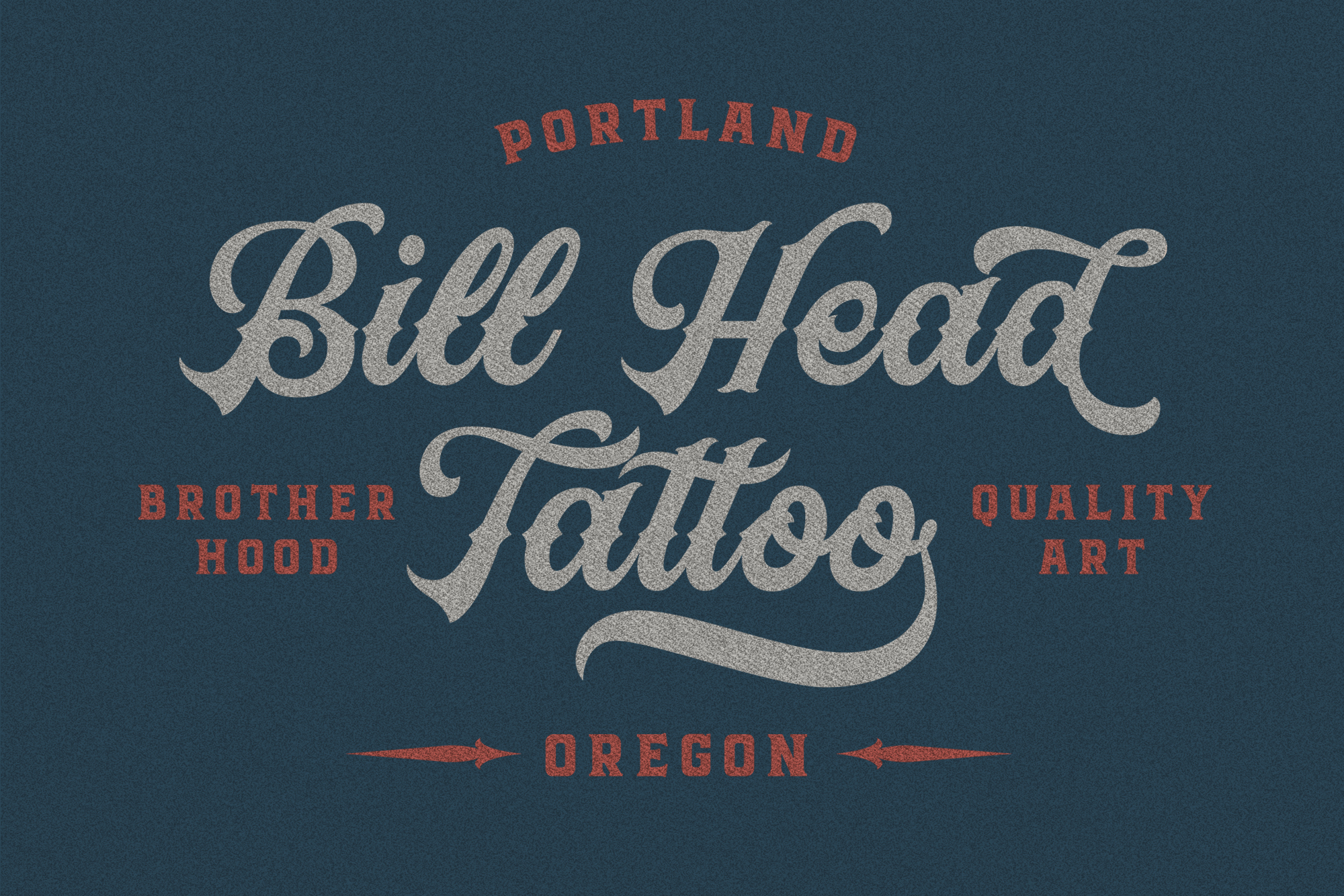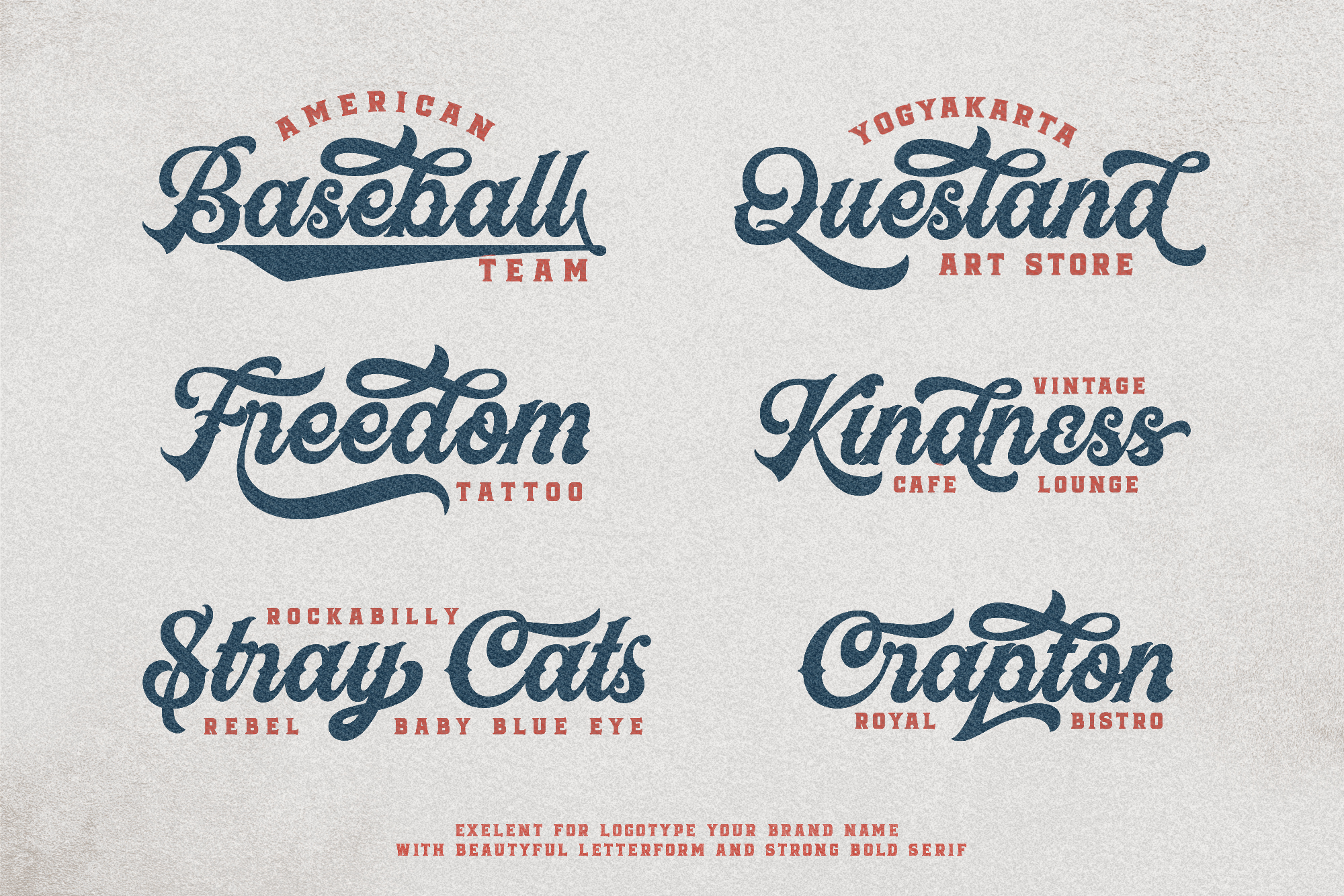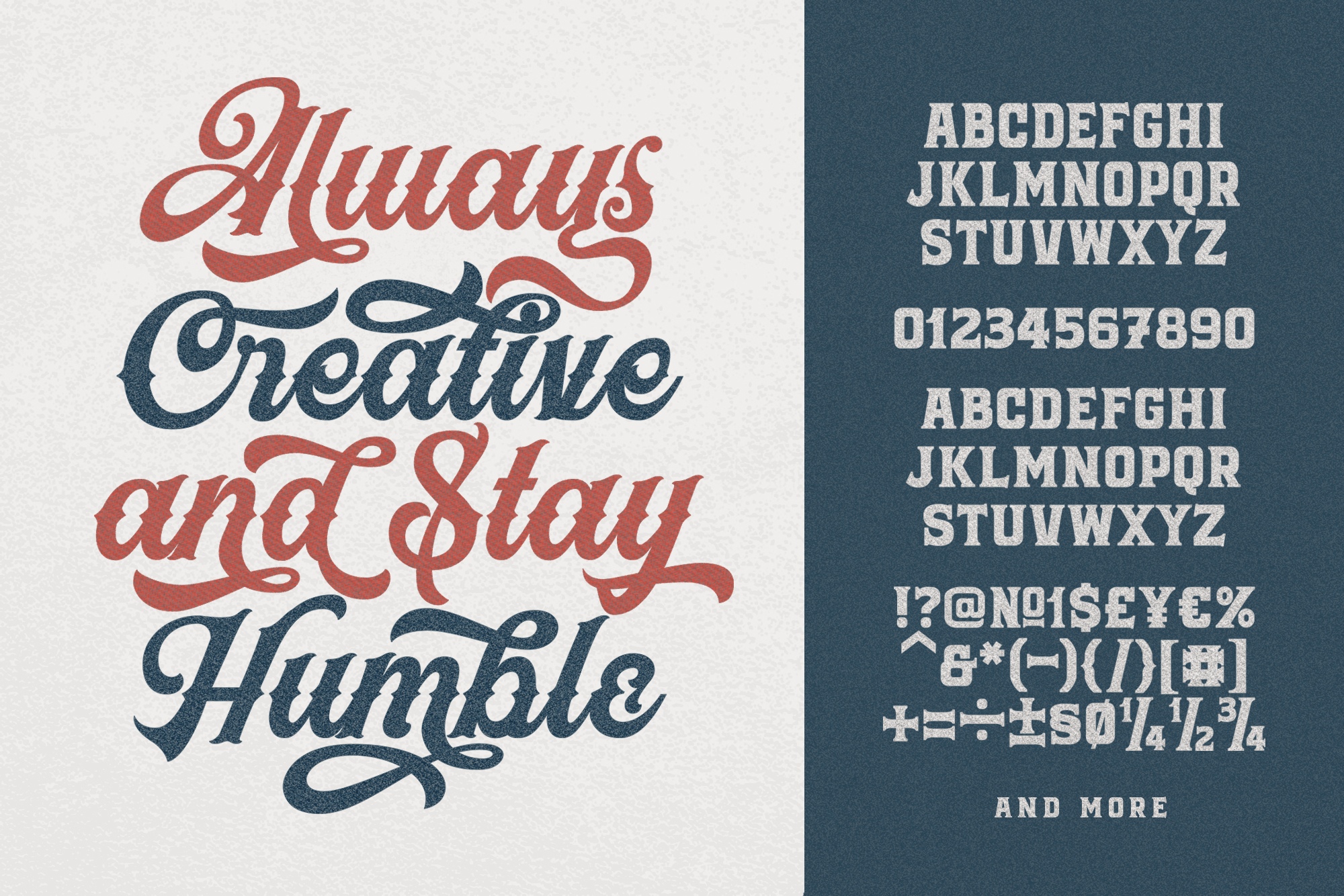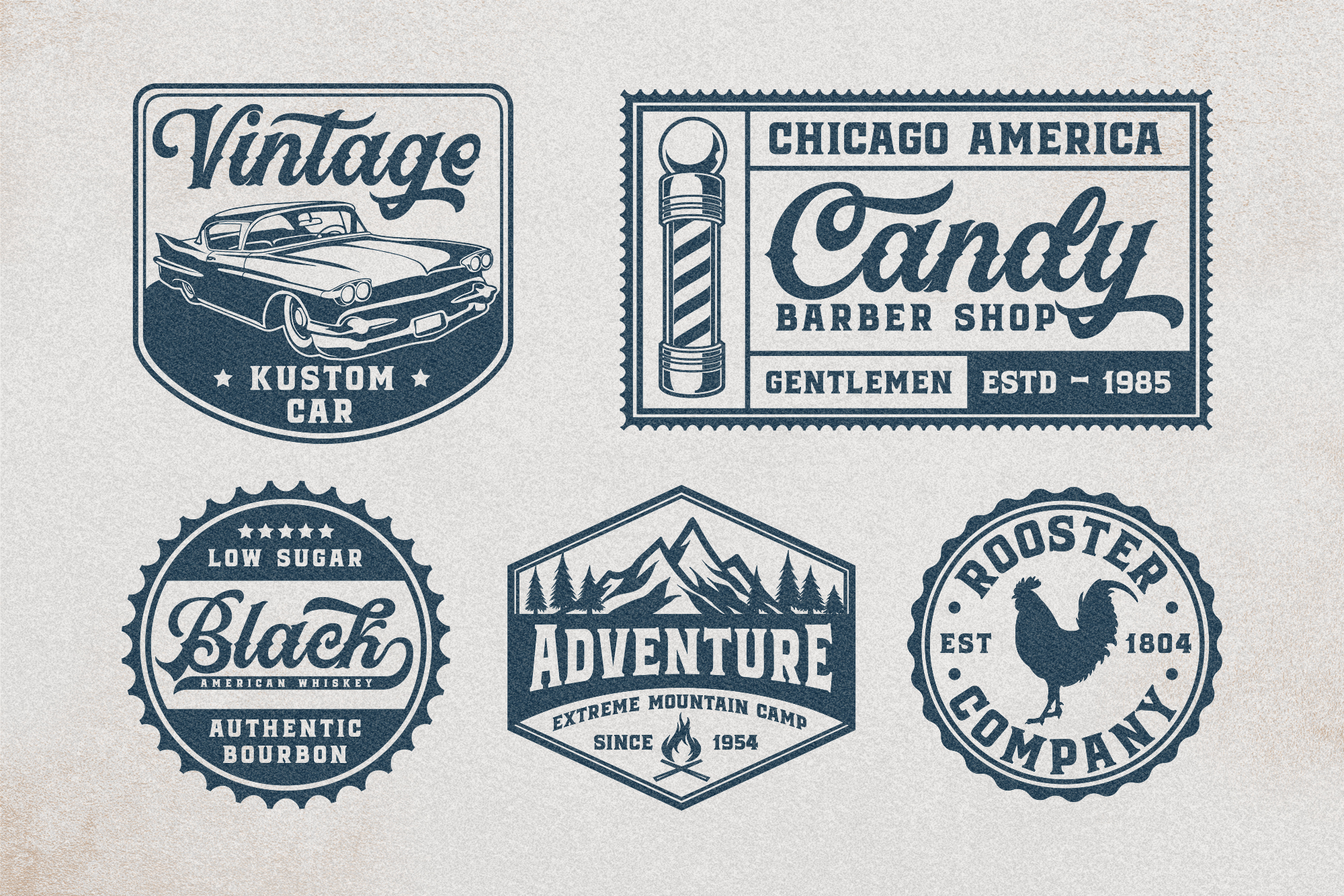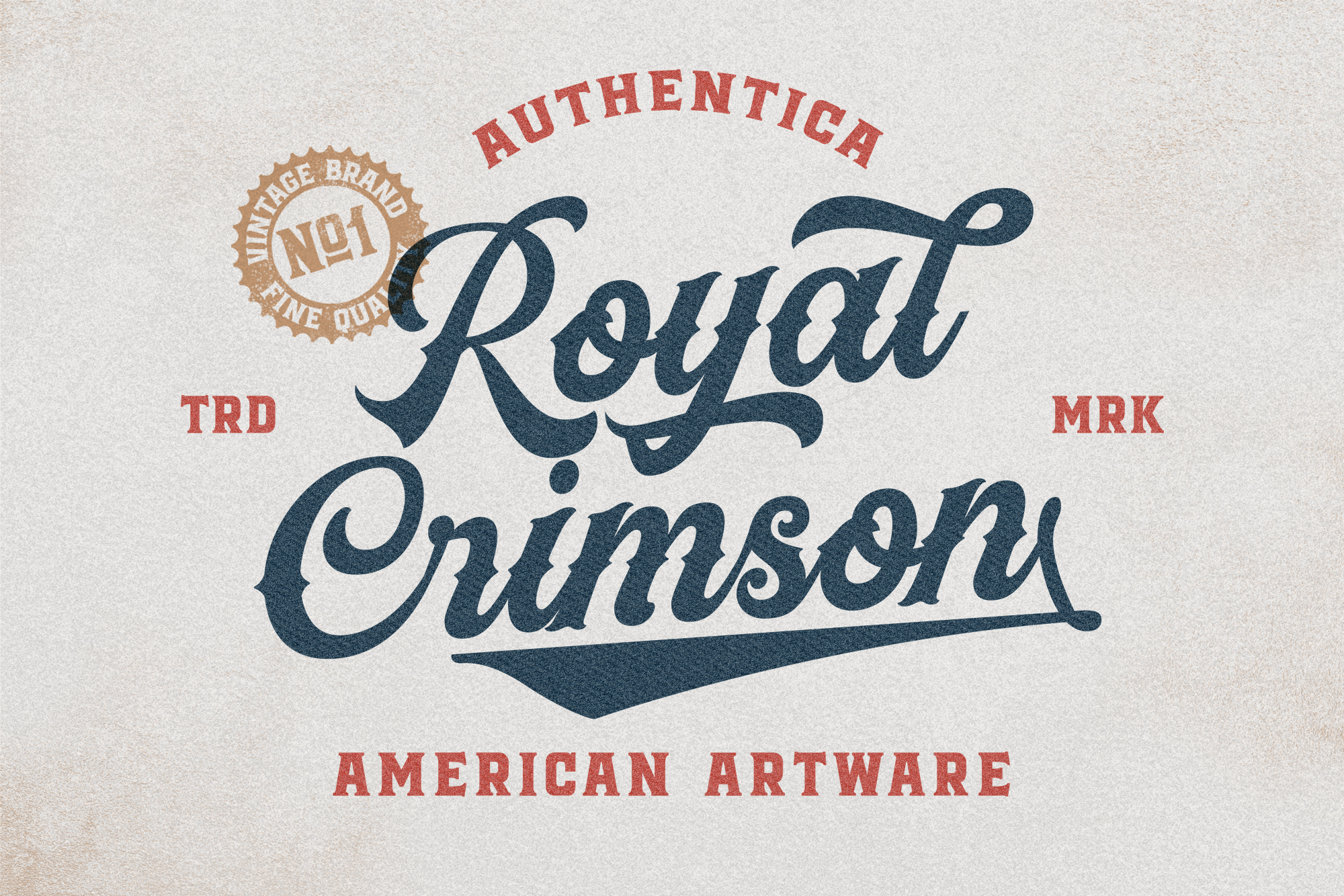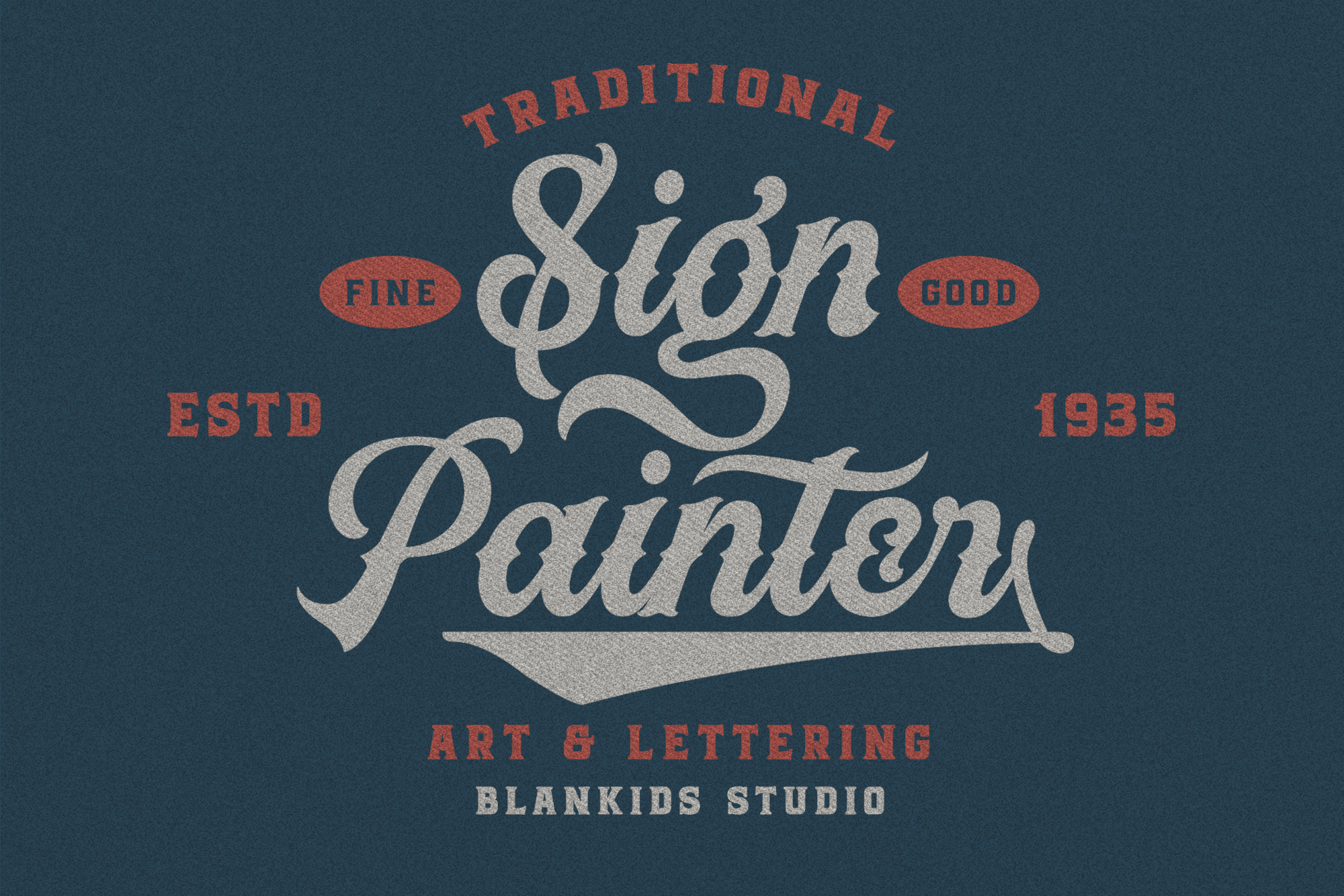
Introducing Black Jack Display Font: A Timeless Vintage Typeface with a Modern Twist
Are you a designer or crafter looking for a font that exudes a sense of nostalgia and sophistication? Look no further than the Black Jack Display Font, a jaw-droppingly crafted vintage font combination that is perfectly styled and executed. Inspired by the vintage stylings of posters, badges, and logotypes of years past, this font brings a refreshing twist to retro typefaces, anchoring them firmly in modernity.
The Inspiration Behind Black Jack Display Font
The Black Jack Display Font draws inspiration from the rich history of vintage typography, where posters, badges, and logotypes were crafted with precision and flair. The font’s creators sought to capture the essence of this bygone era, while infusing it with a modern sensibility that makes it perfect for contemporary design projects. The result is a font that is both timeless and trendy, with a unique character that sets it apart from more generic typefaces.
Key Features of Black Jack Display Font
- Vintage flair: Black Jack Display Font boasts a distinctly vintage feel, reminiscent of classic posters, badges, and logotypes from the past.
- Modern twist: Despite its retro inspiration, the font has a distinctly modern edge, making it perfect for designers and crafters looking for a typeface that is both nostalgic and contemporary.
- Highly stylized: The font features intricate details and ornate styling, making it perfect for headlines, titles, and other display text.
- Versatile: Black Jack Display Font can be used for a wide range of design projects, from branding and advertising to packaging and signage.
What Makes Black Jack Display Font So Special?
So, what sets Black Jack Display Font apart from other vintage-inspired typefaces? For starters, its unique blend of classic and modern elements makes it a true standout. The font’s creators have carefully crafted each letterform to evoke a sense of nostalgia, while also ensuring that it remains highly legible and versatile. Additionally, the font’s highly stylized details and ornate flourishes make it perfect for adding a touch of elegance and sophistication to any design project.
How to Use Black Jack Display Font in Your Design Projects
Black Jack Display Font is incredibly versatile, making it suitable for a wide range of design projects. Here are a few ideas to get you started:
- Branding and advertising: Use Black Jack Display Font to create eye-catching logos, headlines, and ad copy that grabs attention and leaves a lasting impression.
- Packaging and labeling: Add a touch of vintage flair to your product packaging and labels with this unique and stylish font.
- Signage and display text: Black Jack Display Font is perfect for creating eye-catching signage and display text that stands out from the crowd.
- Stationery and invitations: Use this font to add a touch of elegance and sophistication to your stationery, invitations, and other paper goods.
Tips for Getting the Most Out of Black Jack Display Font
To get the most out of Black Jack Display Font, here are a few tips to keep in mind:
- Use it sparingly: Due to its highly stylized nature, Black Jack Display Font is best used sparingly, such as for headlines, titles, and other display text.
- Experiment with colors and textures: Don’t be afraid to experiment with different colors and textures to add depth and interest to your design.
- Pair it with complementary fonts: Black Jack Display Font pairs well with a range of complementary fonts, so don’t be afraid to experiment with different combinations to find the one that works best for your project.
In conclusion, Black Jack Display Font is a truly unique and versatile typeface that is perfect for designers and crafters looking to add a touch of vintage flair to their design projects. With its highly stylized details, modern twist, and timeless appeal, this font is sure to become a staple in any designer’s toolkit.